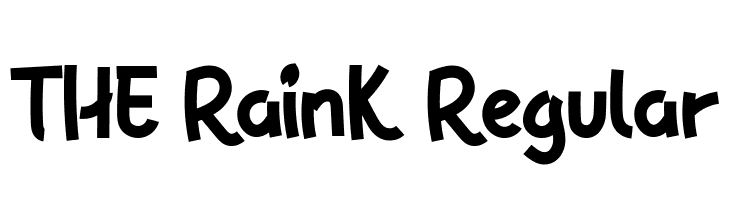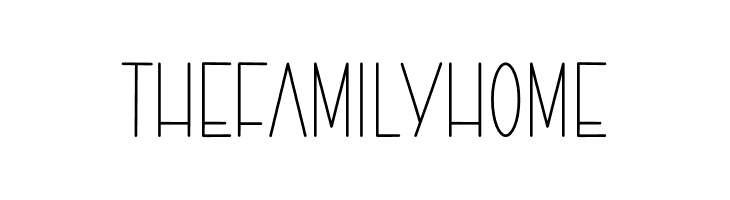
A modern, minimalist font with tall, narrow letters and clean lines.
A playful and artistic handwritten font with dynamic strokes and creative flourishes.
A nautical-themed, hand-drawn font with angular, rustic characters.
A bold, high-contrast font with sharp serifs and elegant curves.
An outlined, geometric font with a modern and playful style.
A bold, rounded font with a playful and friendly appearance.
A playful, bubbly font with bold, rounded characters and a whimsical style.
A bold, brushstroke font with dynamic and energetic styling.